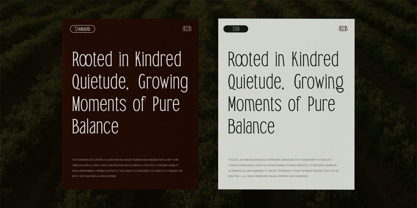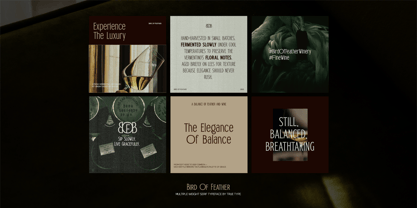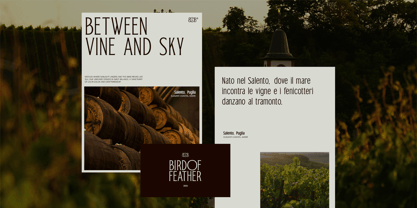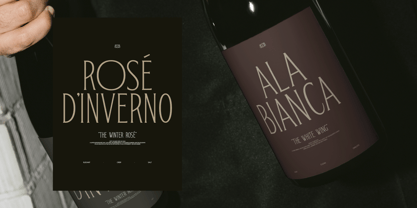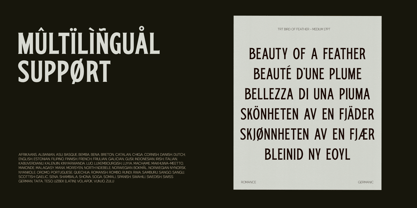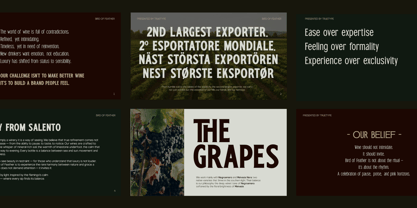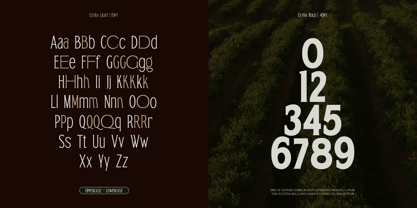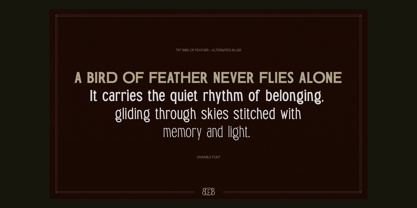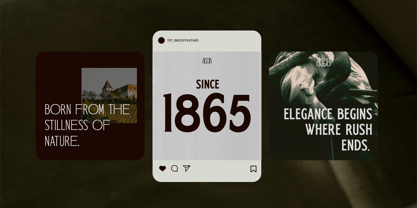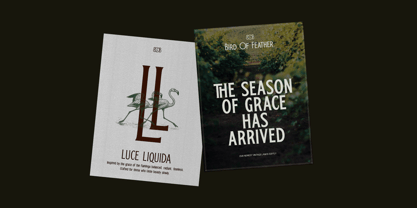
TRT Bird Of Feather
by True Type Lab
The TRT Bird Of Feather Font Family was designed by Yusilo Oktaprima Ardani and published by True Type Lab. TRT Bird Of Feather contains 8 styles and family package options.
TRT Bird of Feather is a refined serif typeface that marries timeless elegance with contemporary finesse. Designed with carefully sculpted serifs, balanced proportions, and a hint of charm, this font speaks with sophistication and clarity across a wide range of creative applications. Its graceful curves and moderate contrast make it a versatile choice for editorial layouts, branding, book covers, logos, and luxury packaging. Whether used in headlines or long-form text, TRT Bird of Feather brings a unique voice — dignified, yet expressive. This typeface blends the classic roots of serif typography with a modern design sensibility, making it equally at home in print and digital environments. Crafted for designers who value detail, character, and visual storytelling, TRT Bird of Feather is more than just a font — it's a typographic experience. At True Type, we believe great type starts with intention. TRT Bird of Feather is built to elevate your message with poise and personality.
Designers: Yusilo Oktaprima Ardani
Publisher: True Type Lab
Foundry: True Type Lab
Design Owner: True Type Lab